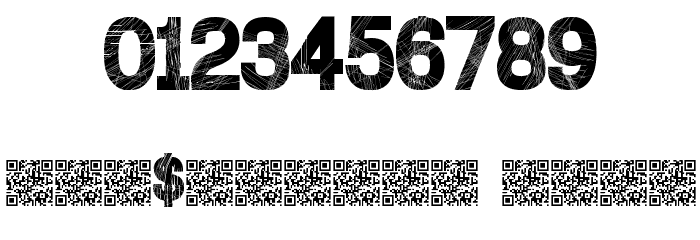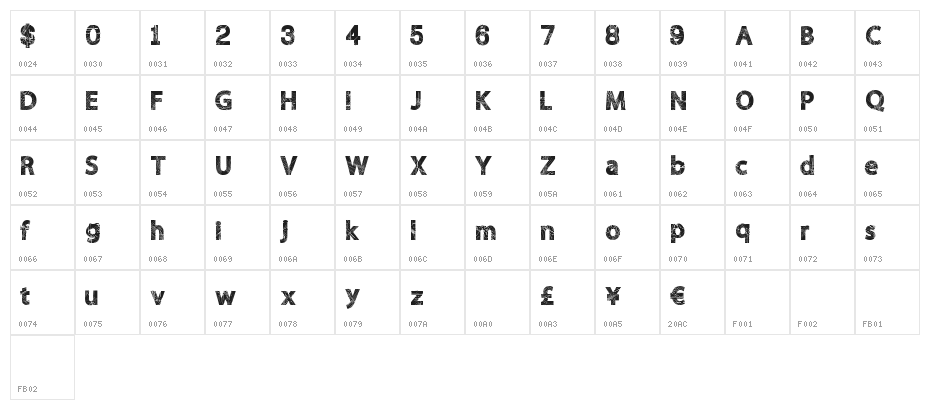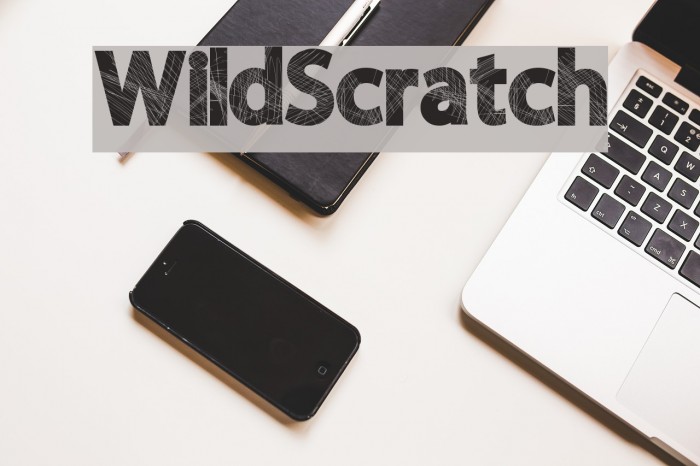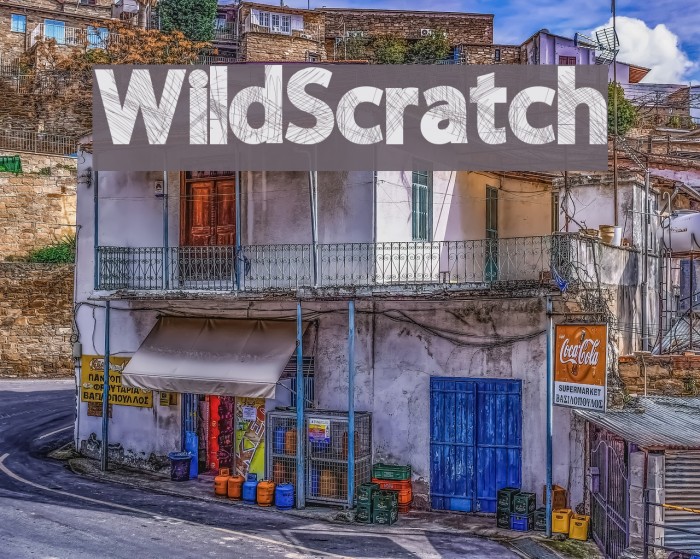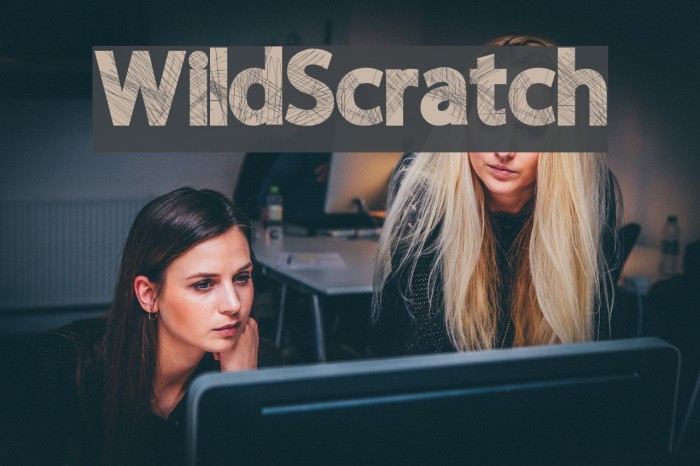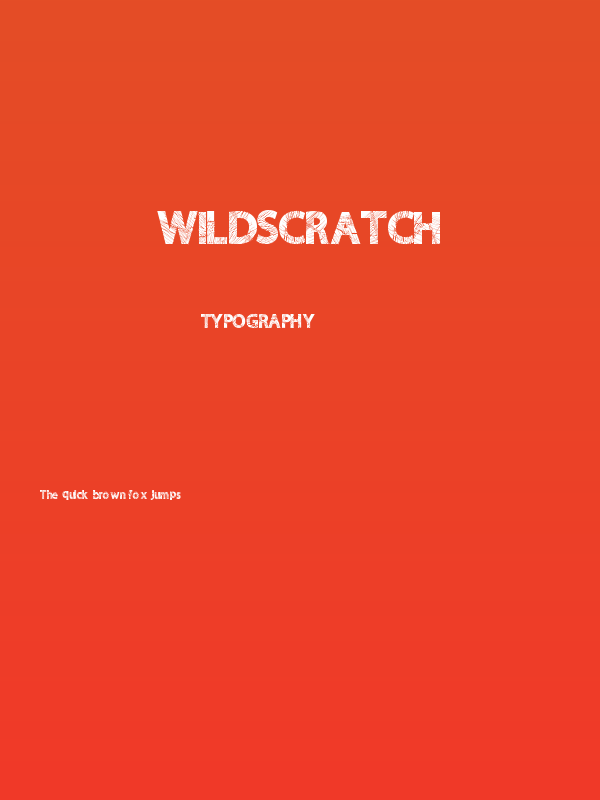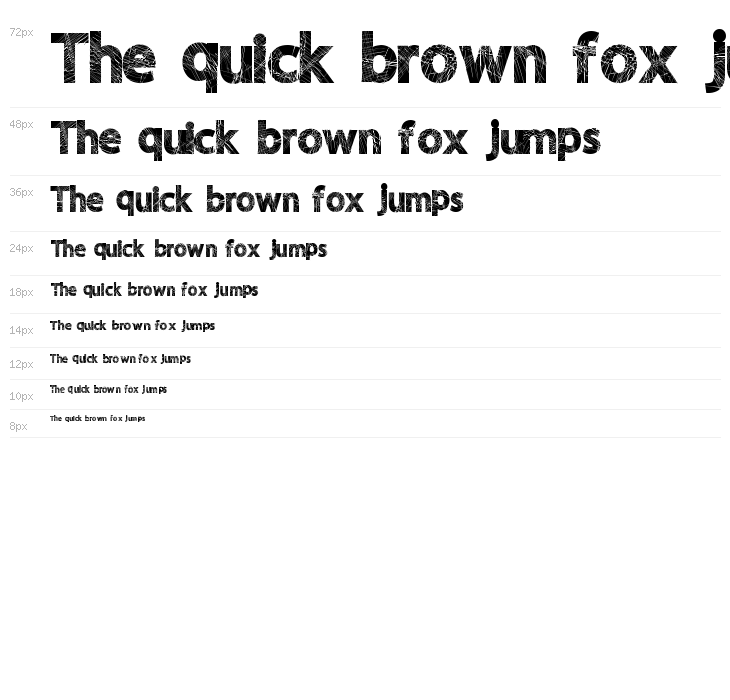
WildScratch Font
WildScratch Description
This font features a bold, textured style with a scratched, distressed appearance. The characters are uppercase and lowercase letters, numbers, and a selection of special characters. The design is highly decorative, with a rough, hand-drawn quality that gives it a unique and edgy look. The texture adds depth and interest, making it stand out in any design. The font is suitable for projects that require a bold statement, such as posters, album covers, or branding for edgy or alternative products. Its distinctive style is both modern and artistic, appealing to those looking for something unconventional.
A bold, textured font with a scratched, distressed appearance from Distorted Eroded fonts.
- Proposed Projects: Ideal for posters, album covers, edgy branding, and artistic projects.
- Overall Style: Modern, Artistic